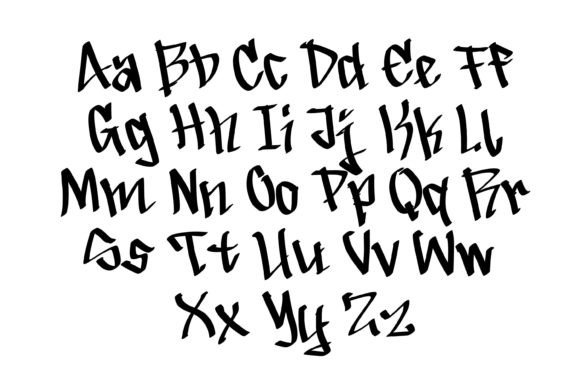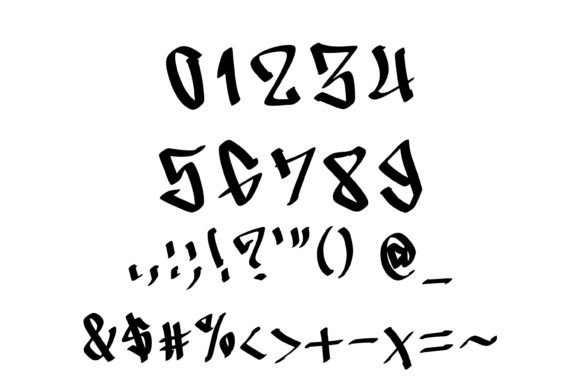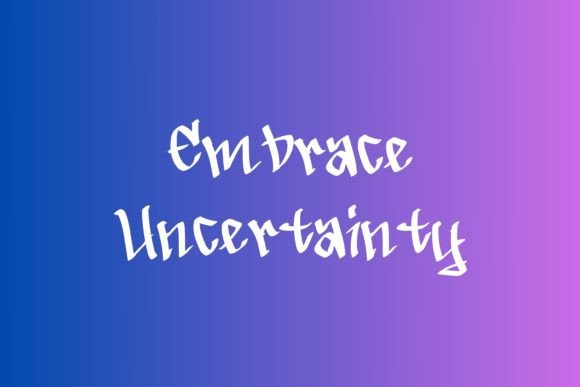
Introduction to Kaotung Font
Introducing Kaotung – a bold and expressive display font that exudes a fun, playful vibe perfect for crafting eye-catching designs.
With its hand-drawn, graffiti-inspired letterforms, this font brings a touch of urban edginess and rebellious energy to your projects The characters feature chunky strokes and irregular lines, lending an organic and dynamic feel to each letter.